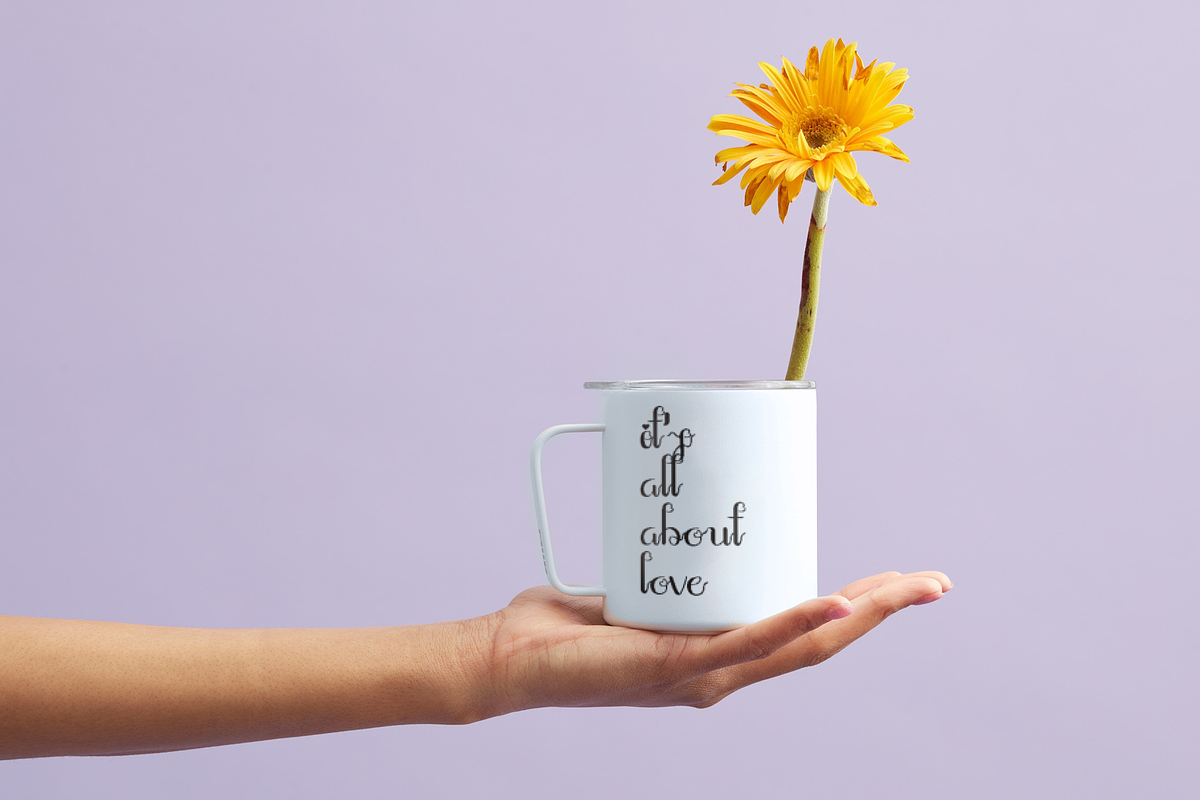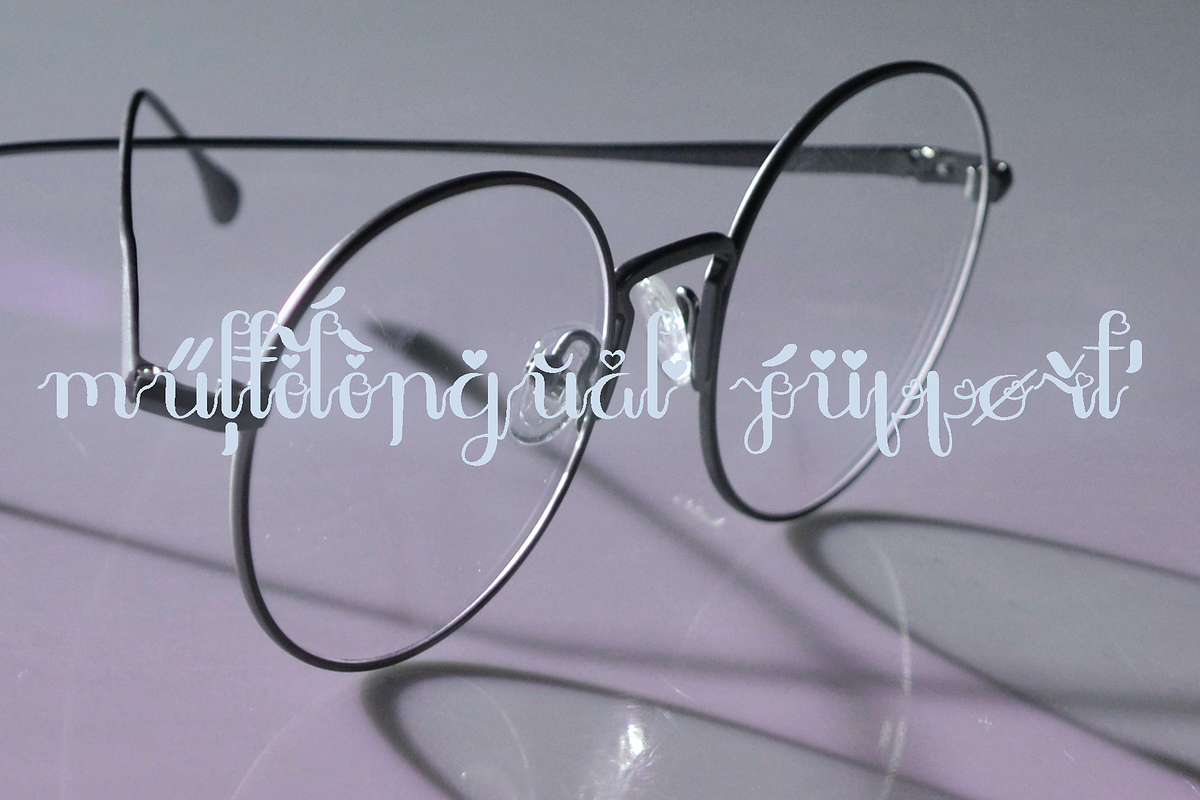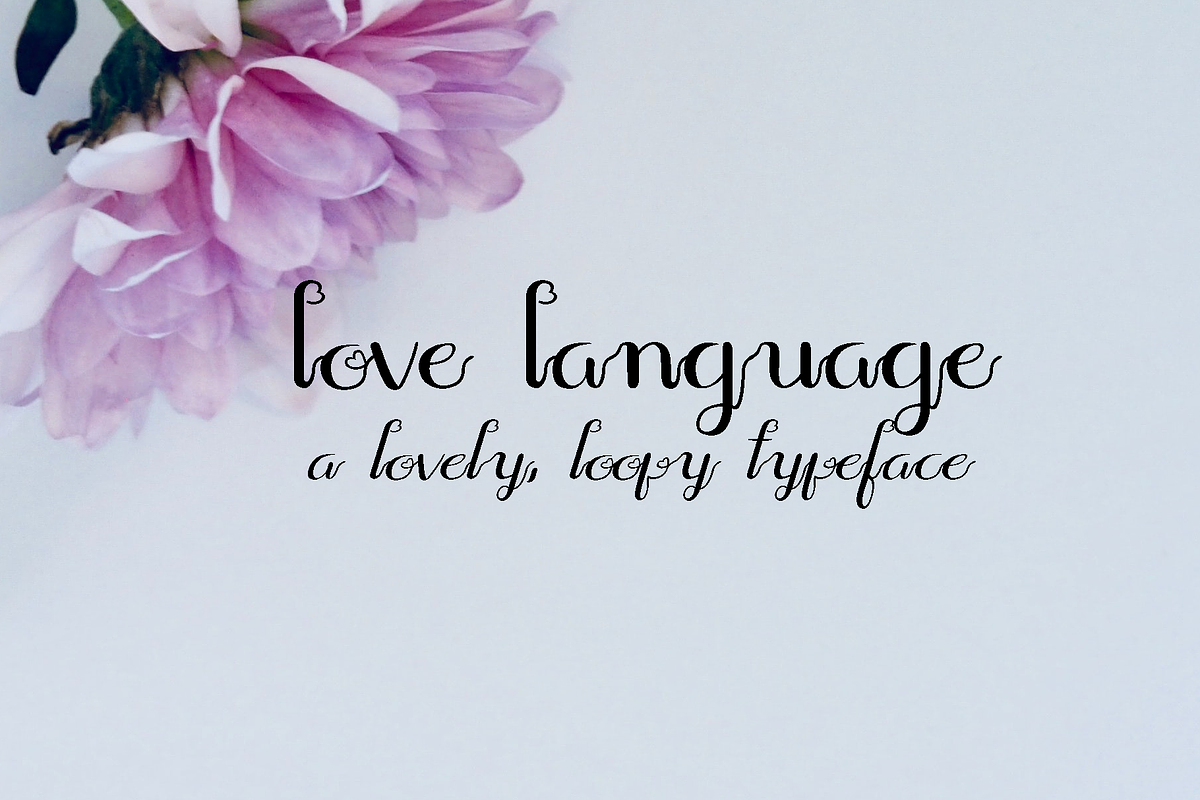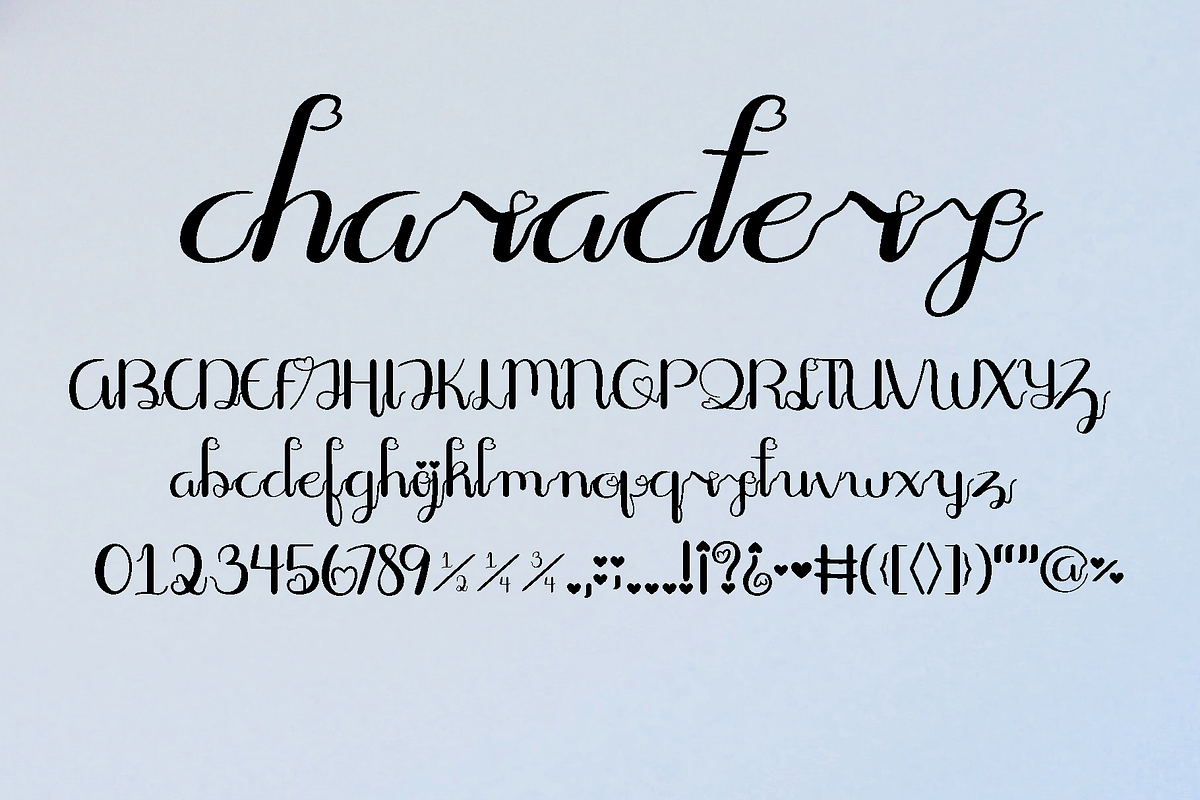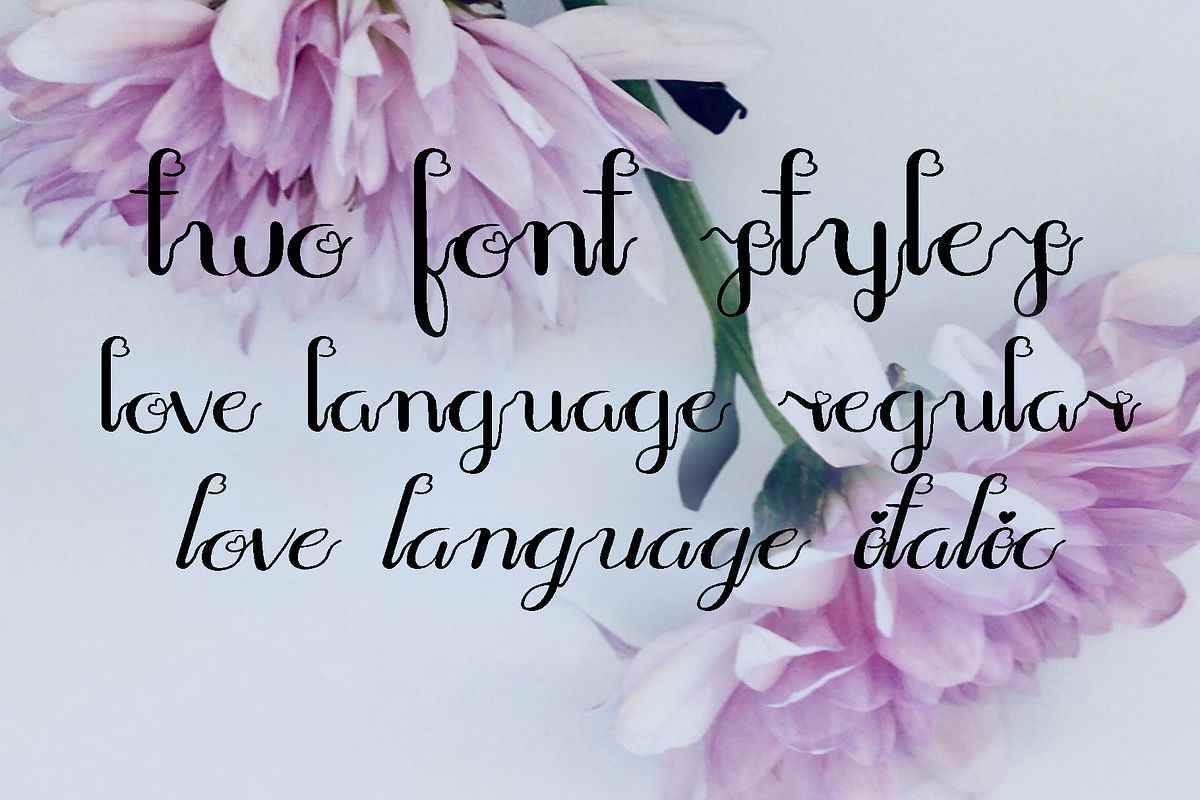
Love Language Script
Love Language Script is unlike any romantic font out there. With hearts for loops, it's perfect for any romantic occasion, including weddings, celebratory cards, and handwritten notes. All of the letters connect with ease and beauty, and it supports multiple languages (especially the love ones!)